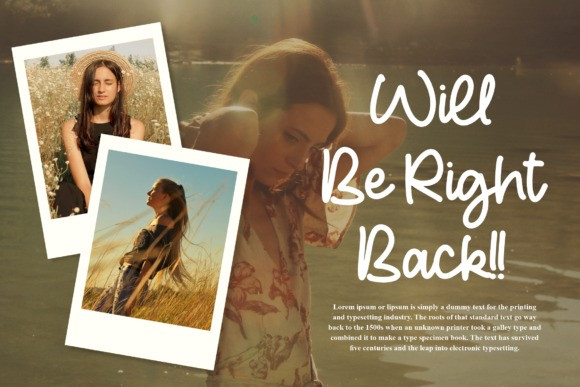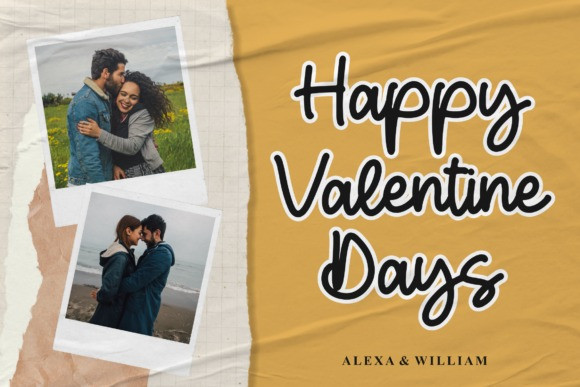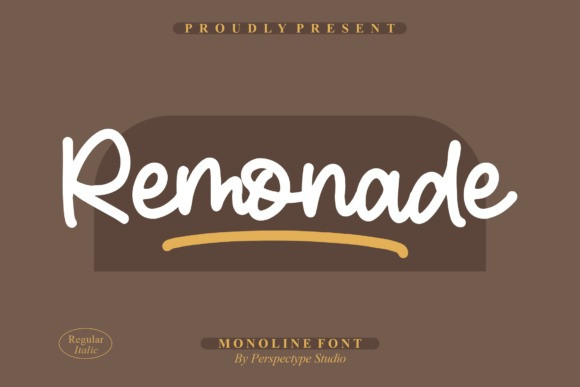
Remonade Handwriting Font
Remonade Handwriting Font – A Monoline Font suitable for any projects such as logos, branding projects, homeware designs, product packaging, mugs, quotes, posters, shopping bags, t-shirts, book covers, name cards, invitation cards, greeting cards, label, photography, watermark, special events, and all your other lovely projects that need a beautiful script taste.